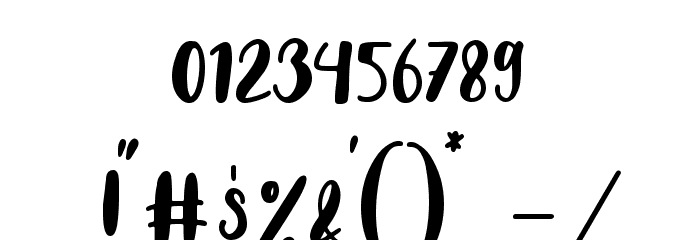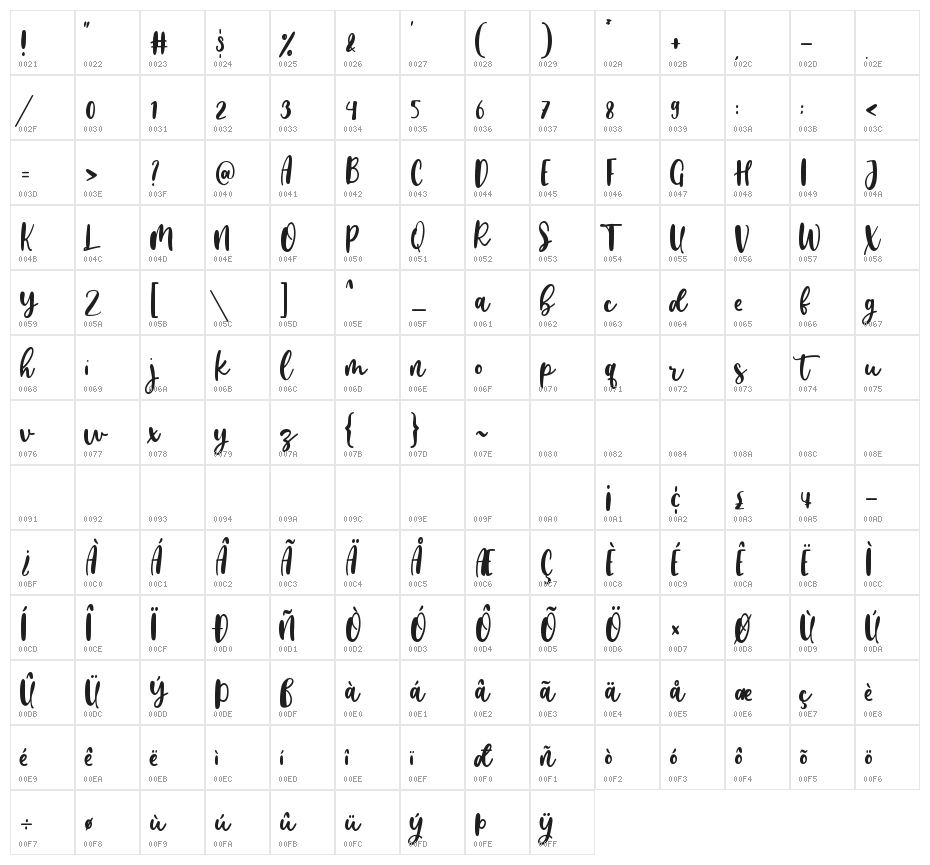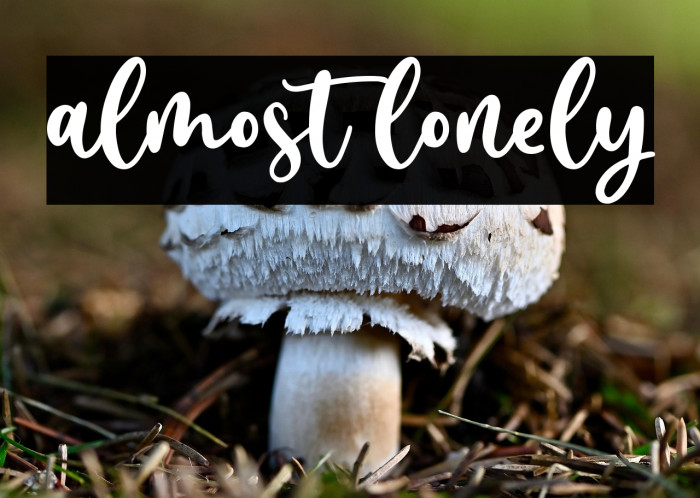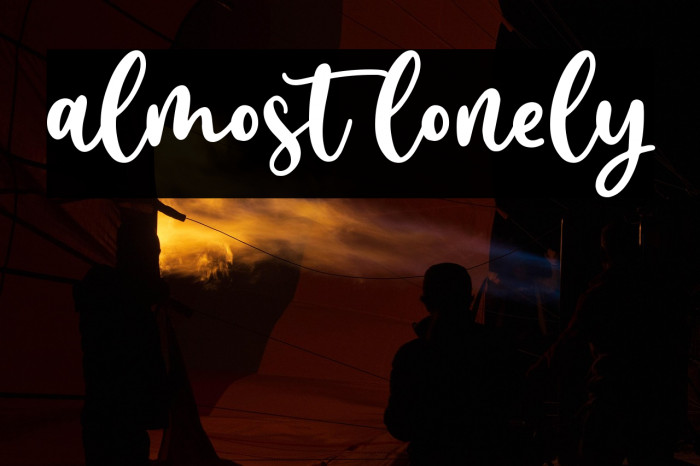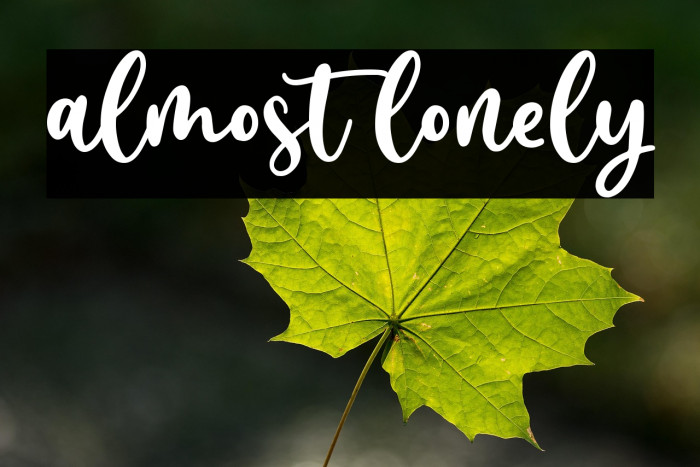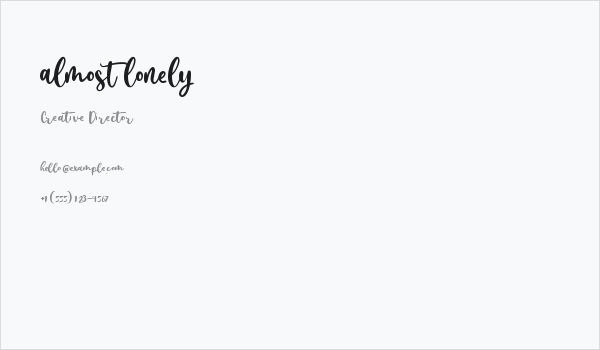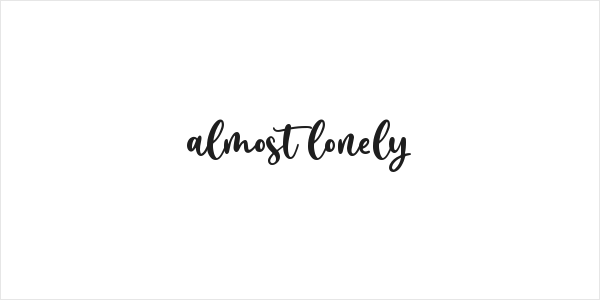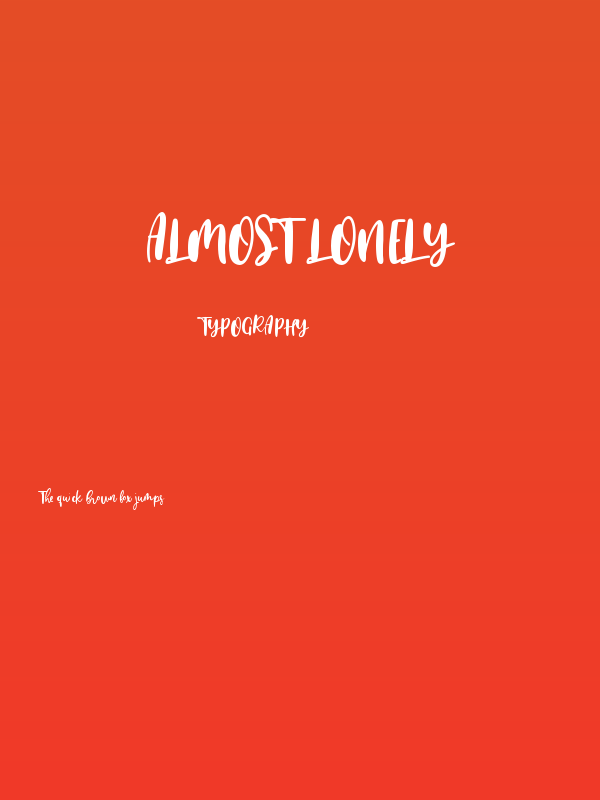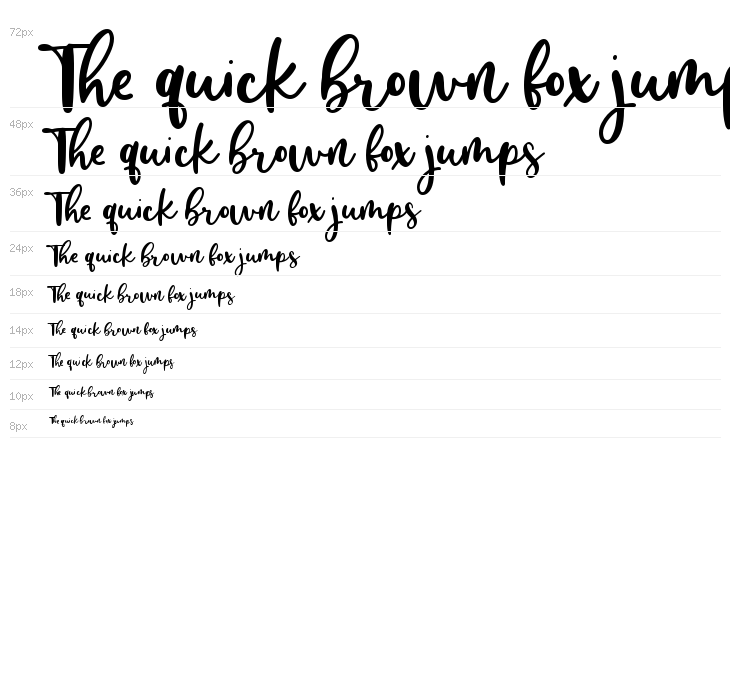
almost lonely Font
almost lonely Description
This font features a lively and flowing script style, characterized by its bold and expressive strokes. The uppercase letters are tall and slightly condensed, with a playful bounce that adds a dynamic feel. The lowercase letters maintain a consistent flow, with some characters extending below the baseline, enhancing its handwritten appeal. The numbers are well-integrated with the overall style, maintaining the same bold and fluid characteristics. Special characters are creatively designed, adding to the font's versatility. This font's energetic and informal style makes it ideal for projects that require a personal touch.
| Proposed Projects | Ideal for greeting cards, invitations, branding, and social media graphics. |